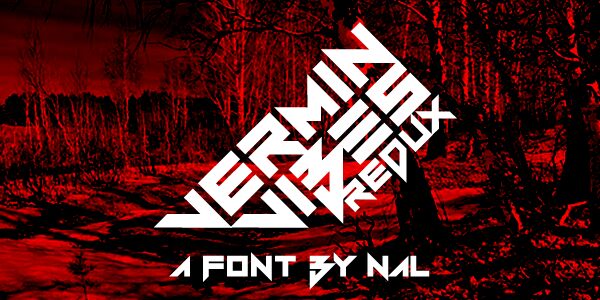
Vermin Vibes Redux by Andrew McCluskey is a free modern Gothic display font with broad strokes and a severe machine-cut profile. Sharp diagonals, squared openings, and abrupt wedges dominate the lettering.
It can frame both dark industrial music artwork and science-fiction game graphics, since its dense geometry suggests equal parts metal hardware and coded interface. The same angular forms suit streetwear branding, event posters, and album packaging, where the letters can function as an emblem as much as a title.